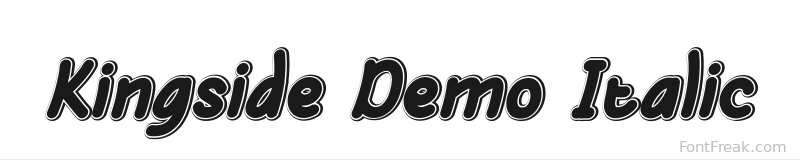
Kingside Demo Italic
Kingside Demo
About Kingside Demo Italic
Kingside Demo Italic by Noah Type is a captivating display font that showcases a playful yet elegant design. As a part of the decorative category, this font exudes personality with its unique italic style. The strokes are characterized by a moderate weight and smooth curves, which create a harmonious balance between boldness and readability. The contrasting elements of the font add depth, while the ample spacing between letters ensures clarity, making it easy to read in various applications.
This font is ideally suited for a range of creative projects. Its whimsical charm makes it perfect for wedding invitations, where it can add a touch of romance and sophistication. Additionally, Kingside Demo Italic shines in movie posters, offering a fresh and modern look that captures attention and evokes emotion. Restaurant menus can benefit from its inviting style, making dishes appear more appealing and enhancing the overall dining experience. It also works well for branding materials, such as logos and business cards, allowing small business owners to convey their unique identity effectively.
The target audience for this font includes graphic designers, content creators, and small business owners who seek to elevate their visual communication. Its versatility allows it to fit seamlessly into various design contexts, making it an excellent choice for anyone looking to make a lasting impression.
What truly sets Kingside Demo Italic apart is its ability to blend playfulness with sophistication, making it an ideal choice for both fun and formal settings. With a Kingside Demo Italic font free download available, designers can easily incorporate this eye-catching typeface into their projects, ensuring they stand out in a competitive landscape.